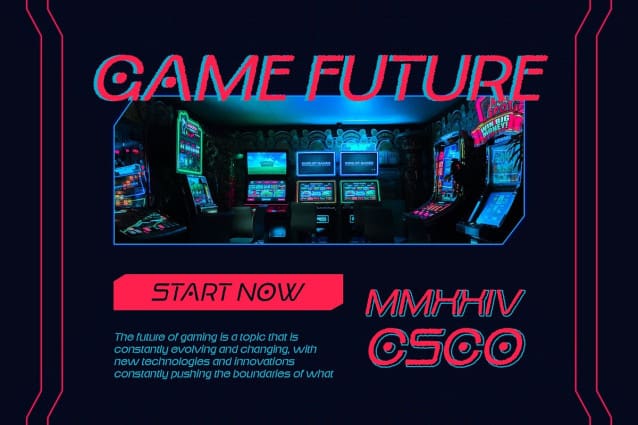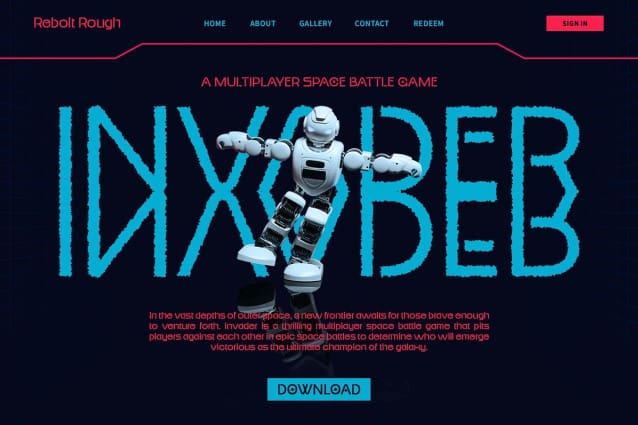
Rebolt Rough Font
Rebolt Rough Font is a futuristic display font that brings a rough edge to your designs. Its unique design adds a modern, cutting-edge vibe to your projects, making them stand out with a bold and striking presence.
Ideal for Striking Displays Designed to catch the eye, Rebolt Rough is perfect for headlines, banners, and other display purposes. Its futuristic and edgy aesthetic ensures that your message is seen and remembered.
Versatile and Impactful Despite its futuristic look, Rebolt Rough is versatile and impactful. Its display font style makes it suitable for a wide range of projects, from branding to digital designs, where a font with a strong visual impact is needed to make a statement.
Perfect for Adding a Modern Edge Rebolt Rough is perfect for projects that require a font with a modern edge. Whether you’re designing a poster, logo, or website, this font is sure to add a unique and memorable touch to your designs.